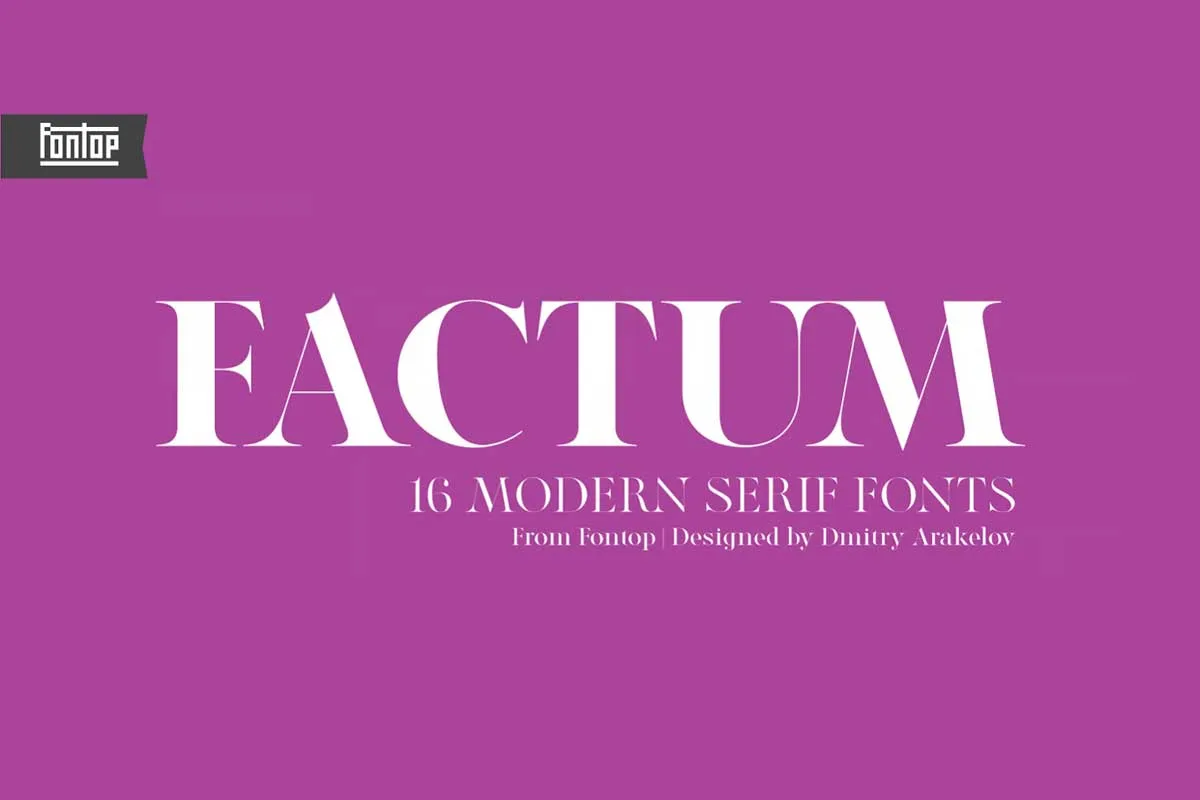
Factum is a timeless serif font family that sets the tone and evokes emotions even before the first word is read. Designed with precision, it establishes a refined atmosphere suitable for various design applications. The Medium and Bold styles of Factum create a visually appealing contrast by combining thick and thin strokes, making it an excellent choice for title pages, cover art, and posters. Meanwhile, the Light and Regular styles maintain an elegant structure that works well for large text and headlines. Additionally, the Stencil styles add a creative touch, making Factum a versatile typeface for typography and logotype designs.
With its deep roots in classical design and cultural significance, Factum is a perfect fit for projects related to fashion, glamour, and artistic publications. It enhances architectural, scientific, and literary works, while also serving well in educational and travel content, fine dining materials, and beauty industry projects. The sophisticated typographic system of Factum ensures that text remains visually appealing and effective across various industries. Whether used in branding, editorial work, or advertising, this serif font family brings a touch of elegance and professionalism.
Factum’s enduring popularity stems from its diverse font variations, making it an excellent choice for multiple design needs. Whether creating logos, magazine layouts, wedding invitations, or promotional materials, this serif font family ensures a polished and sophisticated look. The complete Latin-based European glyph set includes numbers, punctuation, OpenType standard ligatures, discretionary ligatures, and fractional features. With its refined typography, Factum remains a go-to option for designers seeking both classical beauty and modern functionality. Download Factum font for free and elevate your design projects today!